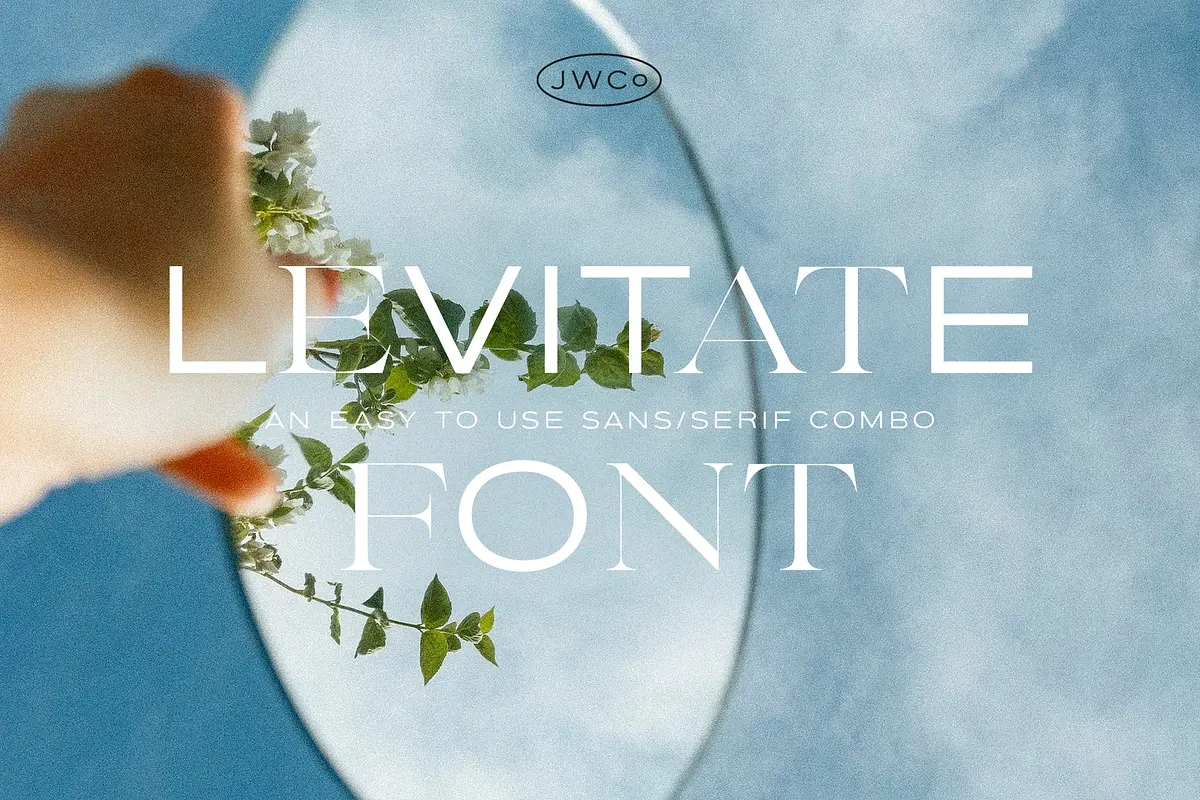
Levitate Modern Font Combo is a versatile typeface duo designed to streamline your design process by allowing seamless transitions between sans serif and serif styles. Created with both graphic designers and Canva users in mind, this combo enables you to effortlessly switch between styles by alternating between uppercase (sans) and lowercase (serif) letters, eliminating the need to toggle between different fonts.
Style Flexibility: Easily alternate between sans serif and serif styles within your text by switching between uppercase and lowercase letters.
Comprehensive Character Set: Includes uppercase and lowercase letters, numbers, punctuation marks, and supports Central & Western European languages.
Ideal Applications: Perfect for creating logos, headings, and quotes, providing a modern and cohesive look to your designs.
Recommended Usage:
Logos: Craft unique and dynamic logos by mixing sans and serif styles.
Headings: Create impactful headings that draw attention and maintain readability.
Quotes: Design visually appealing quotes with a harmonious blend of styles.